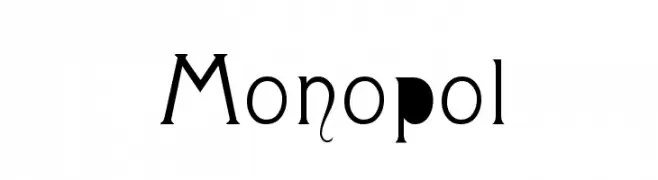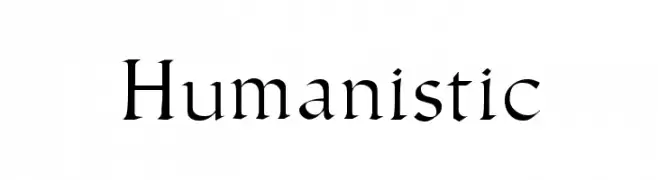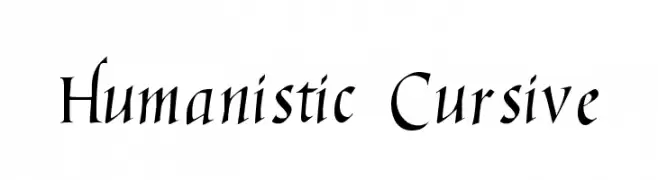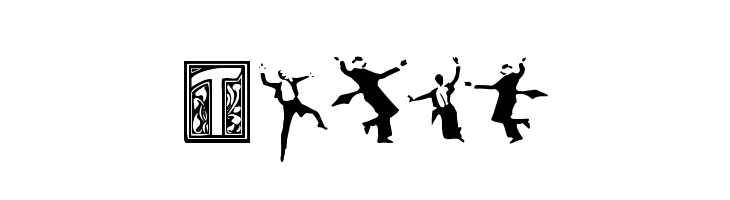
A stylish and artistic font with modern and vintage elements, featuring unique decorative flourishes.
A decorative font with medieval and gothic influences, featuring ornate and intricate letterforms.
A classic, elegant serif font with a humanistic, calligraphic influence.
An elegant humanistic cursive font with dynamic serifs and flowing letterforms.
An ornate blackletter font with bold, angular strokes and intricate details.
An ornate, floral-themed serif font with intricate decorative details.
A bold, dynamic font with a three-dimensional effect and energetic design.
An ornate and decorative font with intricate flourishes, ideal for elegant designs.
A decorative and narrow font with intricate curves and a modern-vintage style.
A decorative font with artistic curves and distinctive serifs.